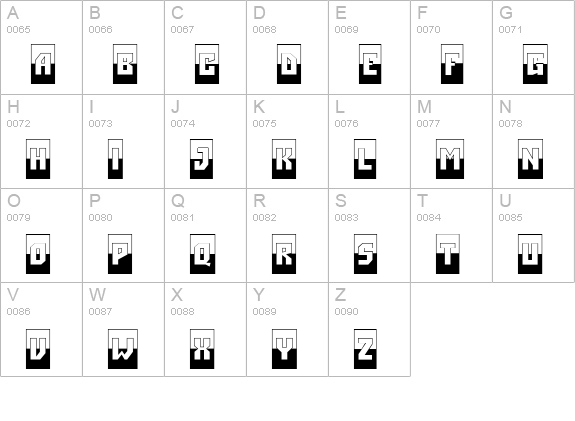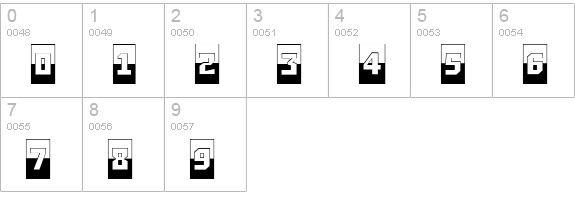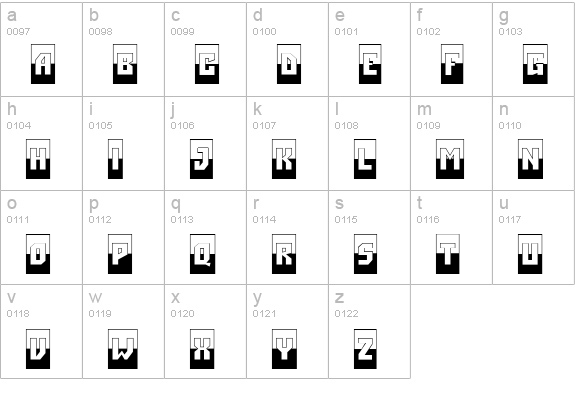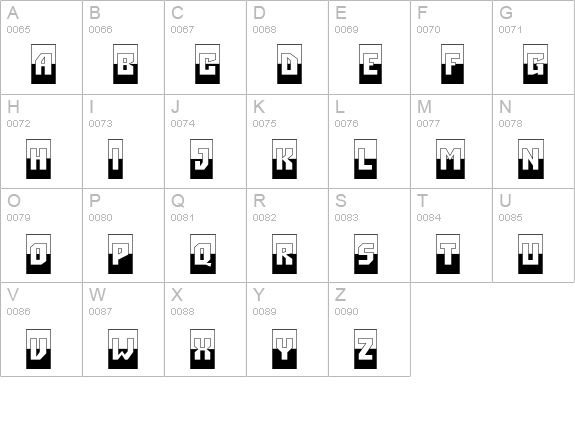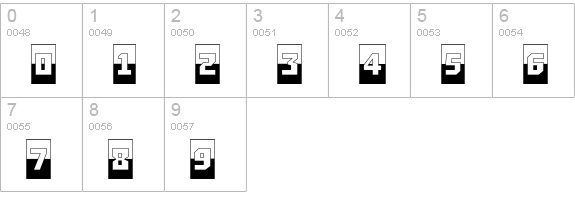
a_SimplerCmB&W Bold Font Details
a_SimplerCmB&W Bold is a strong, high-contrast variant in the a_SimplerCmB&W typeface family \xE2\x80\x94 well suited to headlines, attention-grabbing titles, and strong calls-to-action.
Introducing SimplerCmB&W Bold, a versatile and modern font that exudes confidence and sophistication. This timeless typeface is perfect for a wide range of design projects, from branding to editorial design. With its bold and striking appearance, SimplerCmB&W Bold commands attention and makes a bold statement. What sets SimplerCmB&W Bold apart is its simplicity and clarity, making it easy to read and perfect for conveying your message effectively. Whether you're creating a sleek logo, eye-catching headlines, or stylish packaging, this font is sure to elevate your design to the next level. The best part? SimplerCmB&W Bold is available for free download at FontsMarket.com. So you can start using this stunning font in your projects right away without any cost. Don't miss out on this opportunity to enhance your designs with the timeless elegance of SimplerCmB&W Bold. Download it now and see the difference it can make in your creative endeavors!